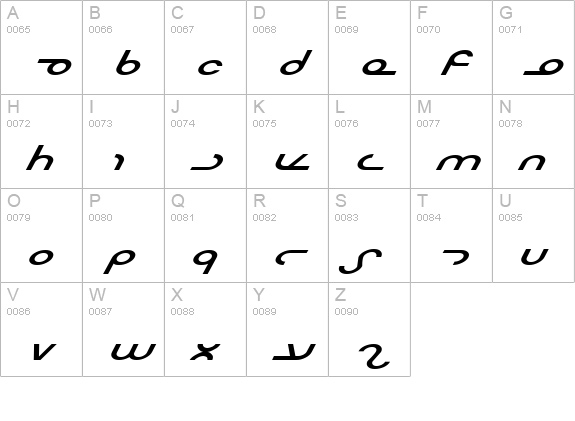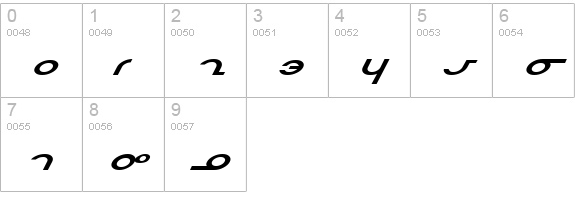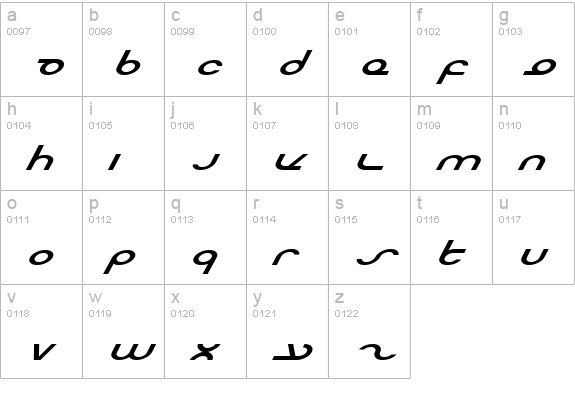
Masterdom Exp Italic is a distinctive, italic variant in the Masterdom typeface family \xE2\x80\x94 well suited to design and typography projects.
Masterdom Exp Italic font is a sleek and sophisticated typeface that exudes elegance and modernity. Its italicized design adds a touch of flair and style to any project, making it perfect for creative endeavors that demand a touch of sophistication. The sleek lines and graceful curves of this font make it ideal for adding a touch of class to any design. What's even better is that Masterdom Exp Italic font is completely free to download at FontsMarket.com. Whether you're working on a professional project or just looking to add a touch of style to your personal creations, this font is a fantastic choice. With its clean and modern aesthetic, Masterdom Exp Italic font is sure to elevate your designs to the next level.